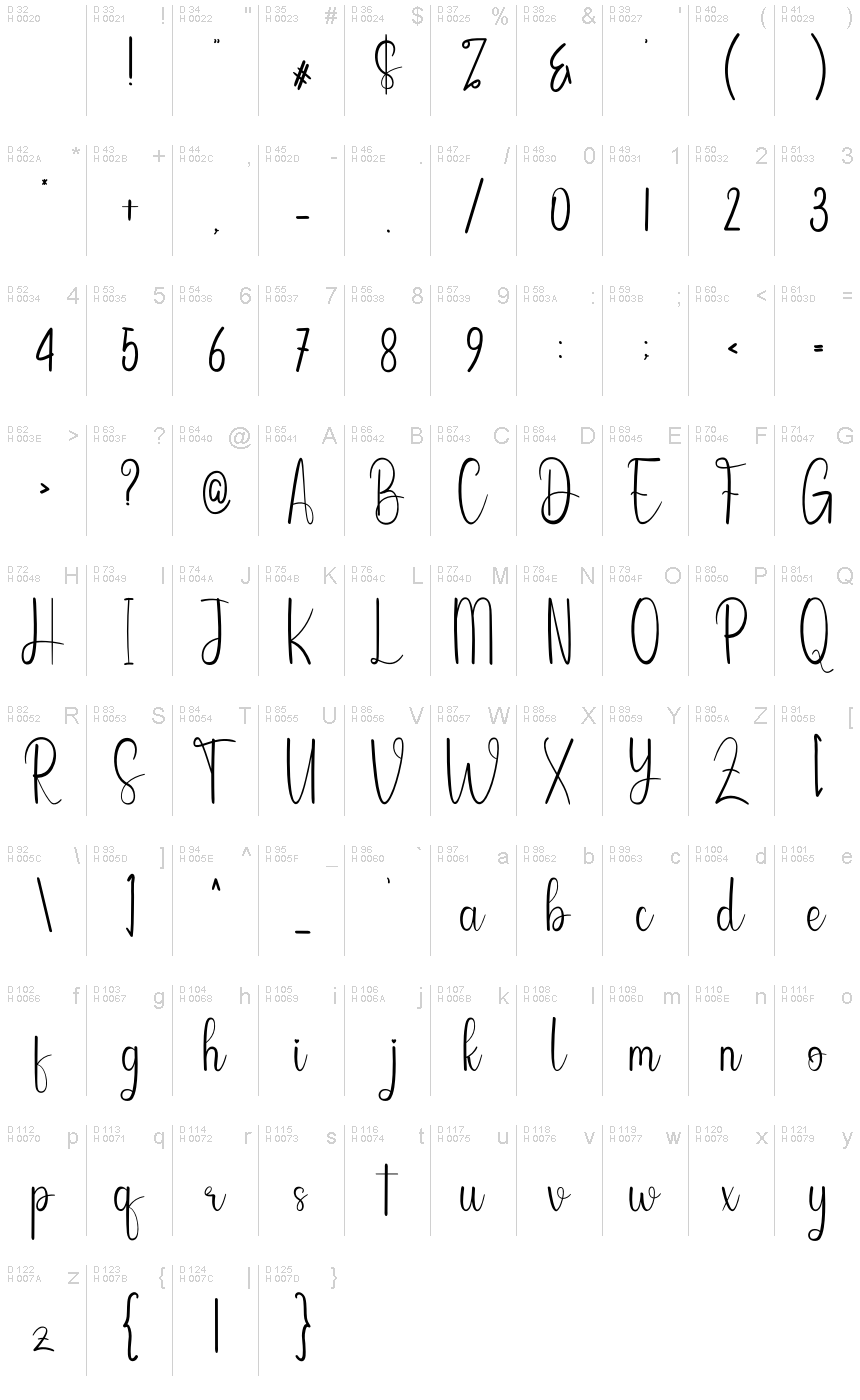
Patricks
Patricks font by Etik Fatimah captivates with its elegant handwritten style and distinctly condensed form. This free font offers a charming blend of modern flair and organic warmth, making it ideal for creative projects that demand a personal touch. The subtle heart detail accentuates its playful yet sophisticated aesthetic. Patricks is perfect for branding, invitations, or social media graphics where individuality and character shine through.